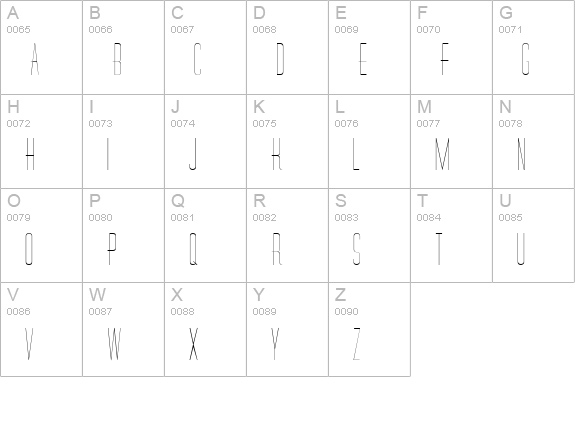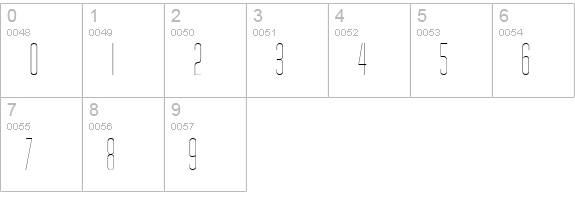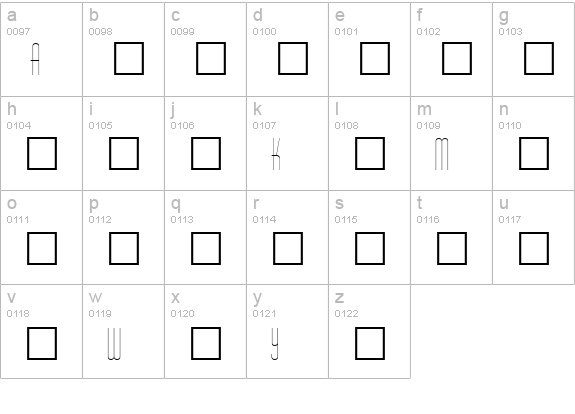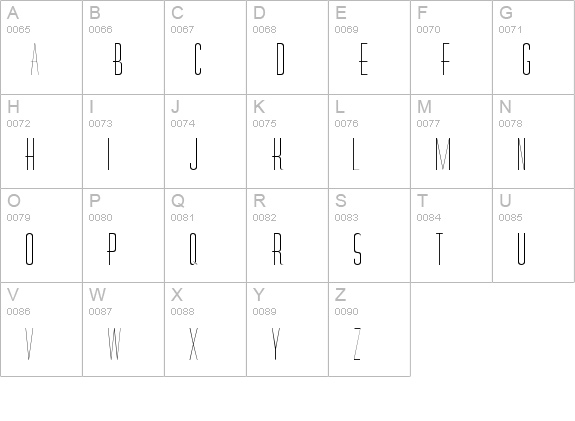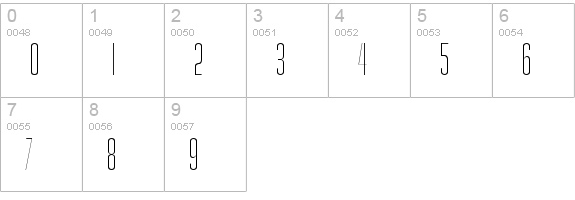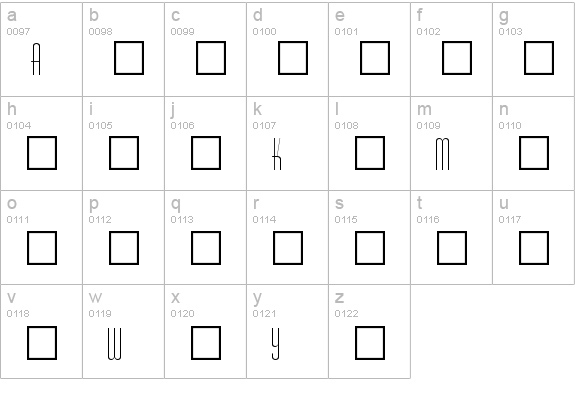
DinerSkinny Font Details
DinerSkinny font is a charming and nostalgic typeface that evokes a sense of retro diners and vintage aesthetics. With its slim and elegant letterforms, DinerSkinny adds a touch of whimsy and playfulness to any design project. Whether you're working on a menu, logo, or invitation, this font will bring a touch of old-school flair to your work. The best part? DinerSkinny font is completely free to download at FontsMarket.com. You can easily access this delightful typeface and incorporate it into your projects without any cost. Embrace the classic diner vibes and give your designs a unique and timeless appeal with DinerSkinny font. Download it today and start creating with this fantastic font!